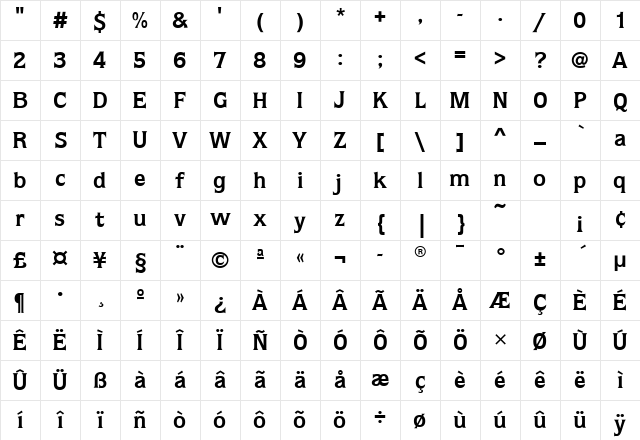
Complete QuorumBookITC Bold glyph index. Displaying only characters natively supported by QuorumBookITC Bold font.
QuorumBookITC is a composed and adaptable typeface that performs quietly and consistently across a wide range of design contexts. Its bold stroke weight gives it real presence on the page.